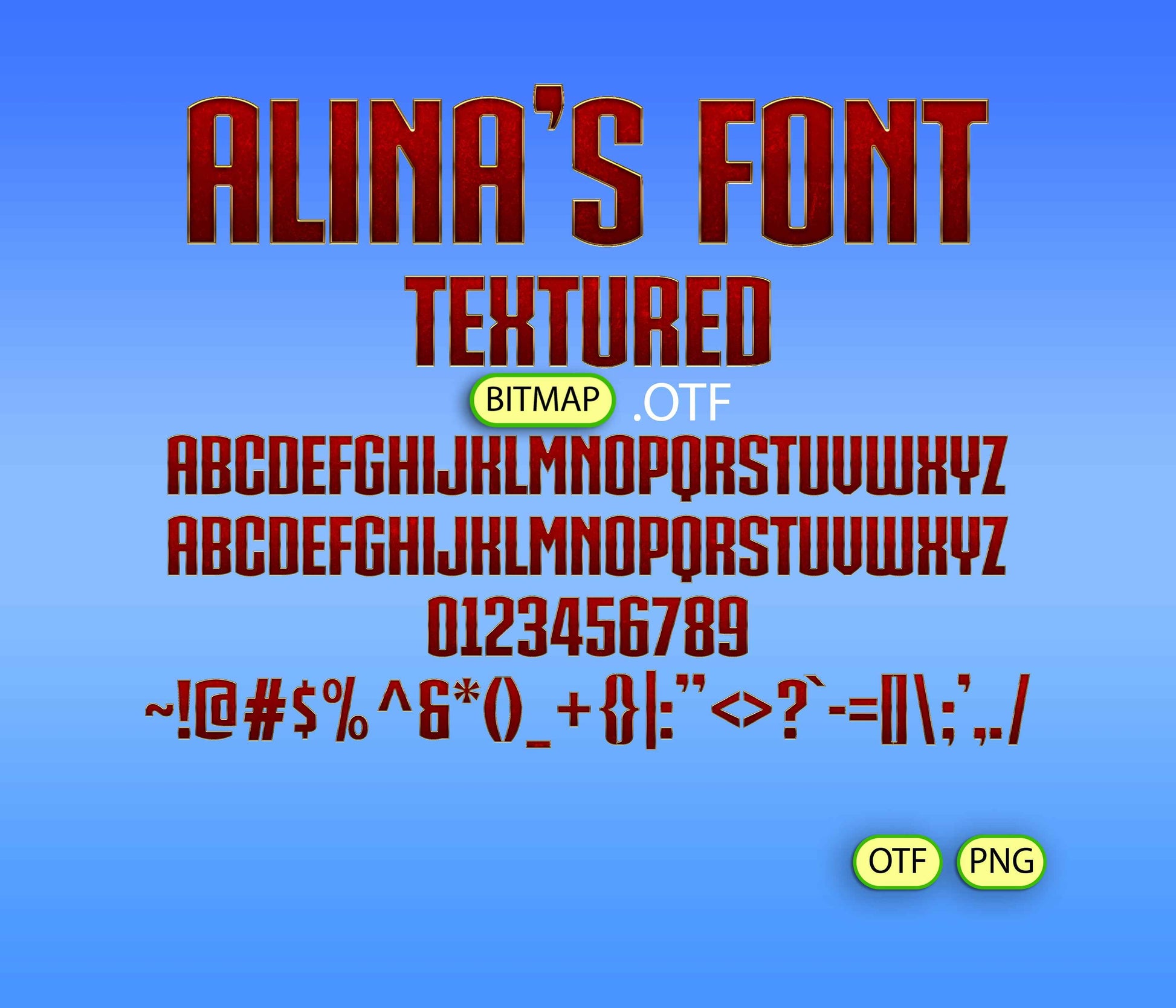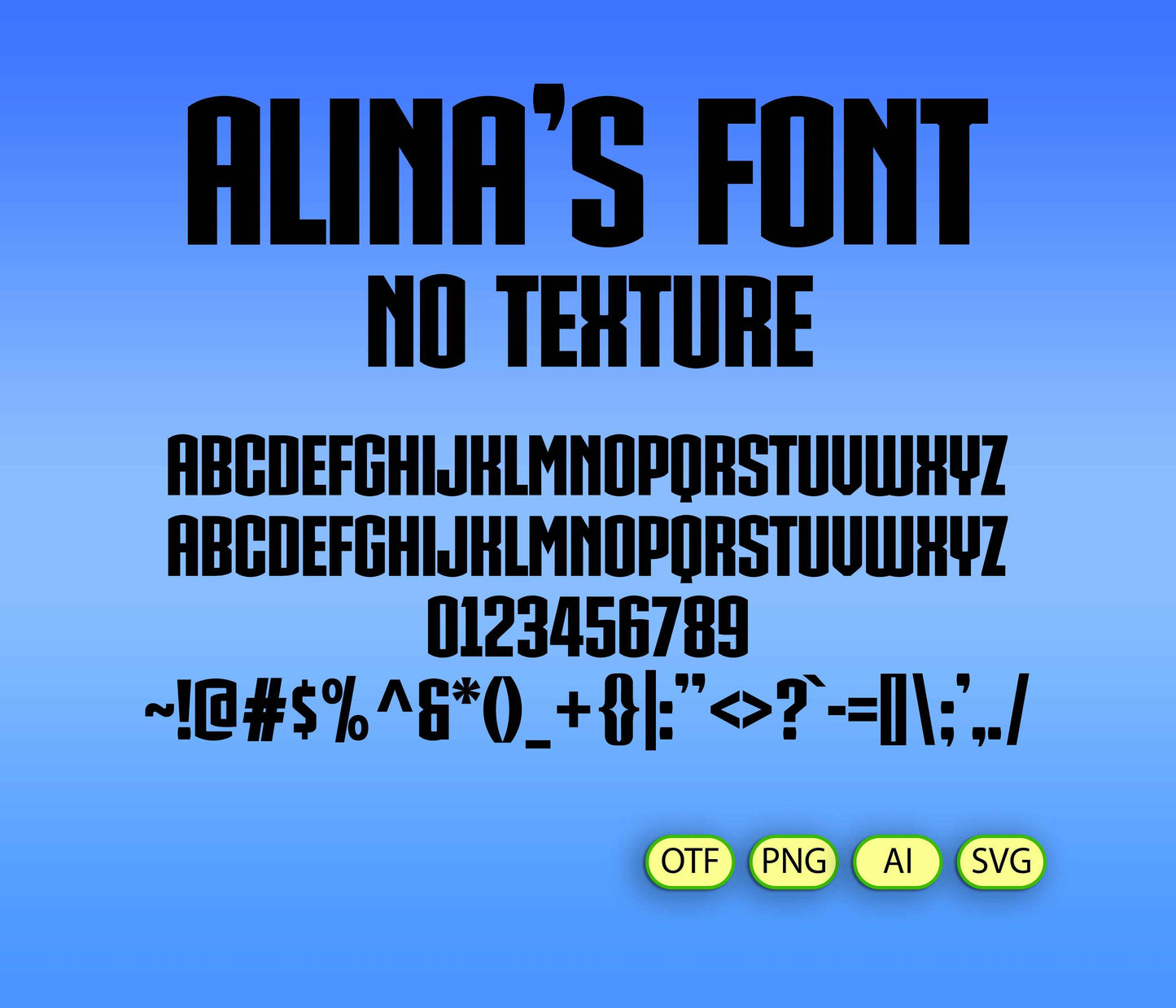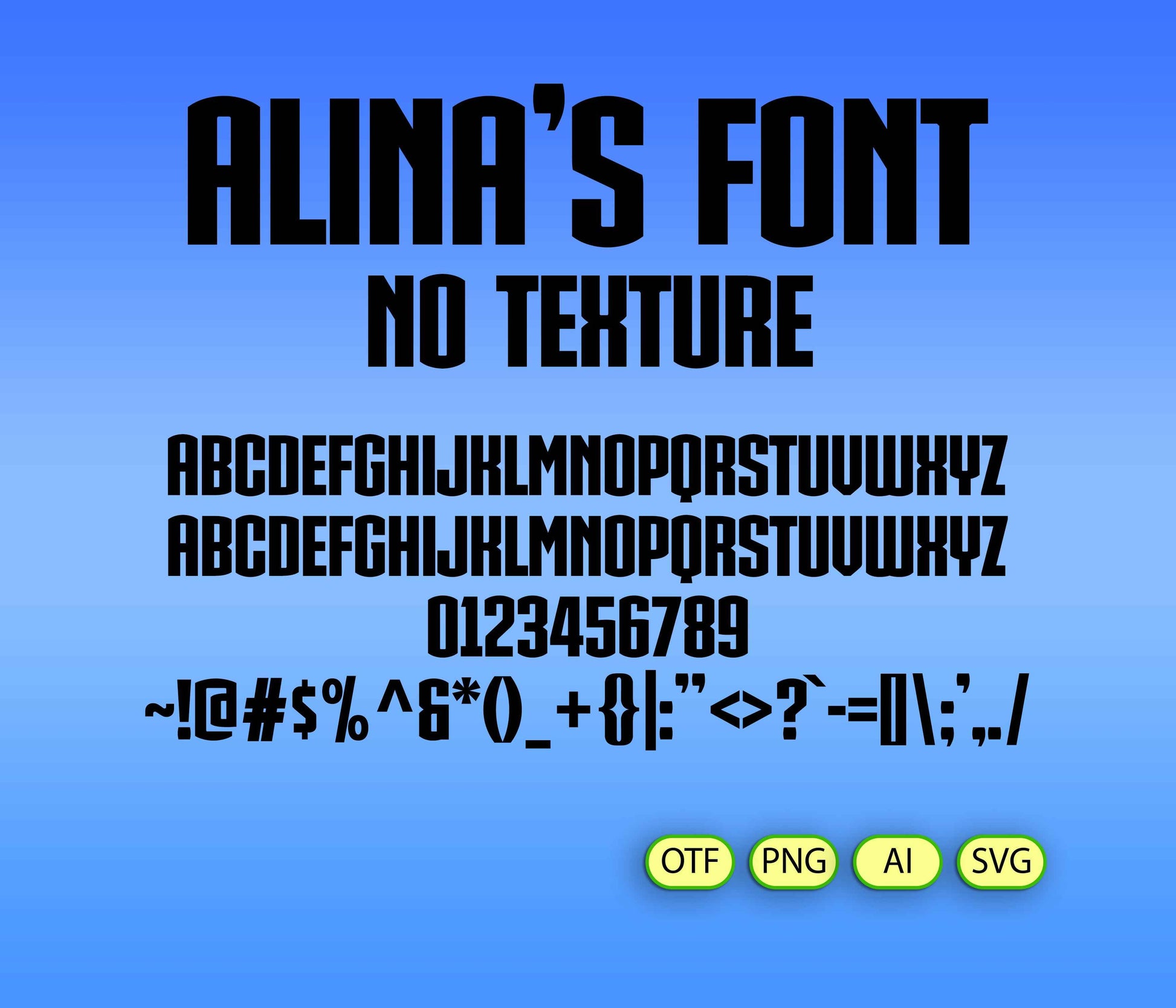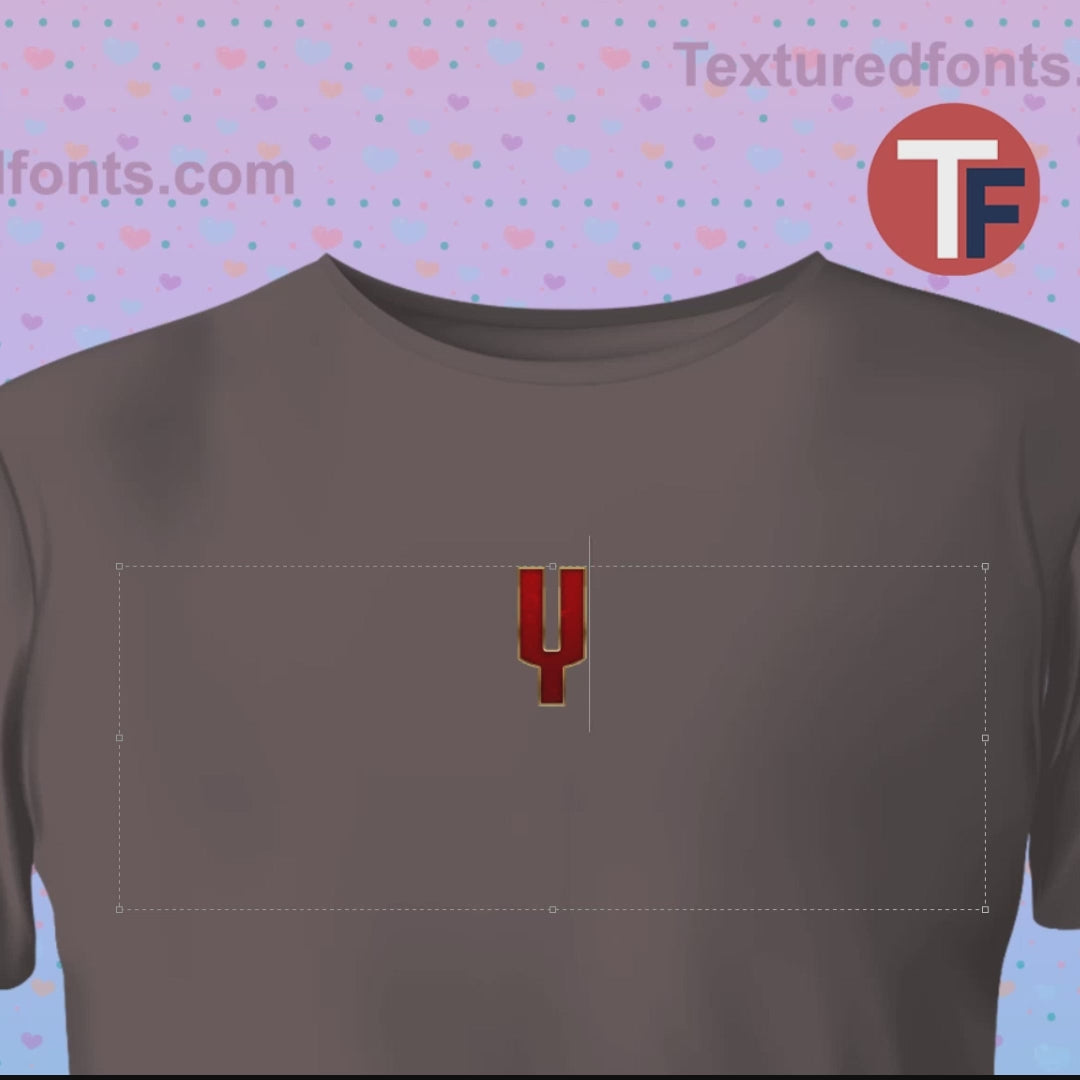
Tech Hero Font Textured
Tech Hero Font: Forging the Future in Every Letter
Dive into the heart of innovation and heroism with the Tech Hero font, a typeface that embodies cutting-edge technology and the indomitable spirit of a genius inventor's legacy. As the latest chapter in the saga of an iconic high-tech superhero, this font captures the essence of a world where science meets heroism: a blend of sophistication, power, and relentless pursuit of progress. It's designed for creators, designers, and fans who wish to infuse their projects with forward-thinking energy and sleek aesthetics that represent advanced technology and heroism.
What font is Tech Hero Font?
The Tech Hero font is meticulously engineered to mirror sleek designs of advanced armor and futuristic interfaces. Each character in the font is crafted with precision, embodying themes of innovation and resilience that a tech-savvy superhero stands for. The font features an extensive character set, including numbers and special characters, making it a versatile asset for various design projects. The sharp lines and geometric shapes reflect advanced technology and engineering prowess, making every word typed a tribute to a legacy of scientific brilliance and heroic deeds.
Feature Highlights and Bonuses The Tech Hero font package is a treasure trove for designers, featuring both a textured variant for those seeking to capture the rich visual texture of high-tech armor, and a FREE non-textured version for seamless integration across all software, including Canva. This ensures that your projects retain their futuristic flair, whether they're presented on digital screens or printed materials.